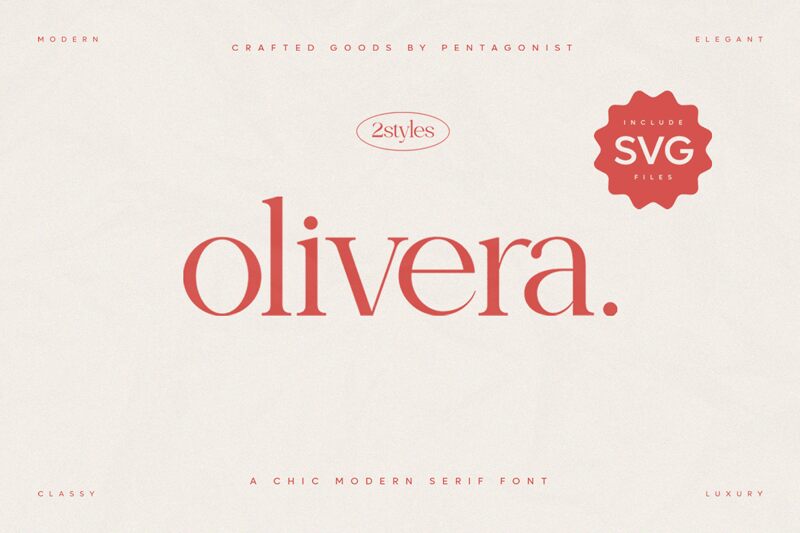
Olivera, designed by Pentagonistudio, exudes a timeless elegance with its serif style that gracefully bridges classic and contemporary design. Its bold presence commands attention while maintaining an air of sophistication, perfect for making a statement. The font's distinguished serifs and balanced proportions give it a versatile flair that can elevate the visual narrative of any project.
In the realm of potential use cases, Olivera shines in branding, editorial work, and luxury product packaging. Its robust yet refined aesthetic can add a touch of class to book covers and is equally adept at anchoring striking headlines in magazines or upscale advertisements. The typeface's distinct personality ensures it stands out whether used for tasteful logos or compelling print media.